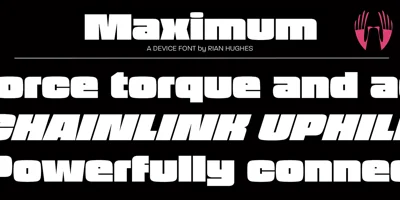
Maximum Font
When your design calls for maximum impact, Maximum Font delivers just that. This bold and robust typeface is designed to grab attention and communicate strength with every letter. Ideal for headlines, logos, posters, and branding, Maximum Font brings a powerful presence to your creative projects.
The clean, geometric structure of Maximum Font ensures maximum readability while maintaining a striking aesthetic. Whether you’re crafting an eye-catching advertisement or a strong corporate identity, this font balances professionalism with modern flair.
This font’s versatility makes it a great choice for industries ranging from sports and tech to fashion and entertainment. It excels in large sizes but also works well for shorter text blocks where emphasis is key.